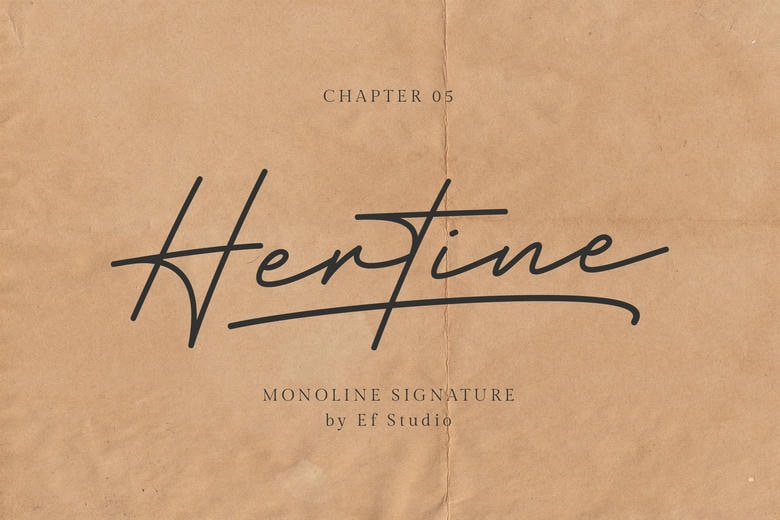
Hertine Font
Hertine Handwritten Font is a clean monoline signature font making it add a touch of elegance to any undertaking. Its graceful line and personal handwriting are perfect in logos, branding, invitations, packaging and even in personal signatures. Hertine uses simple and sophisticated designs to make any design timeless and exclusive.
Hertine Handwritten Script Font